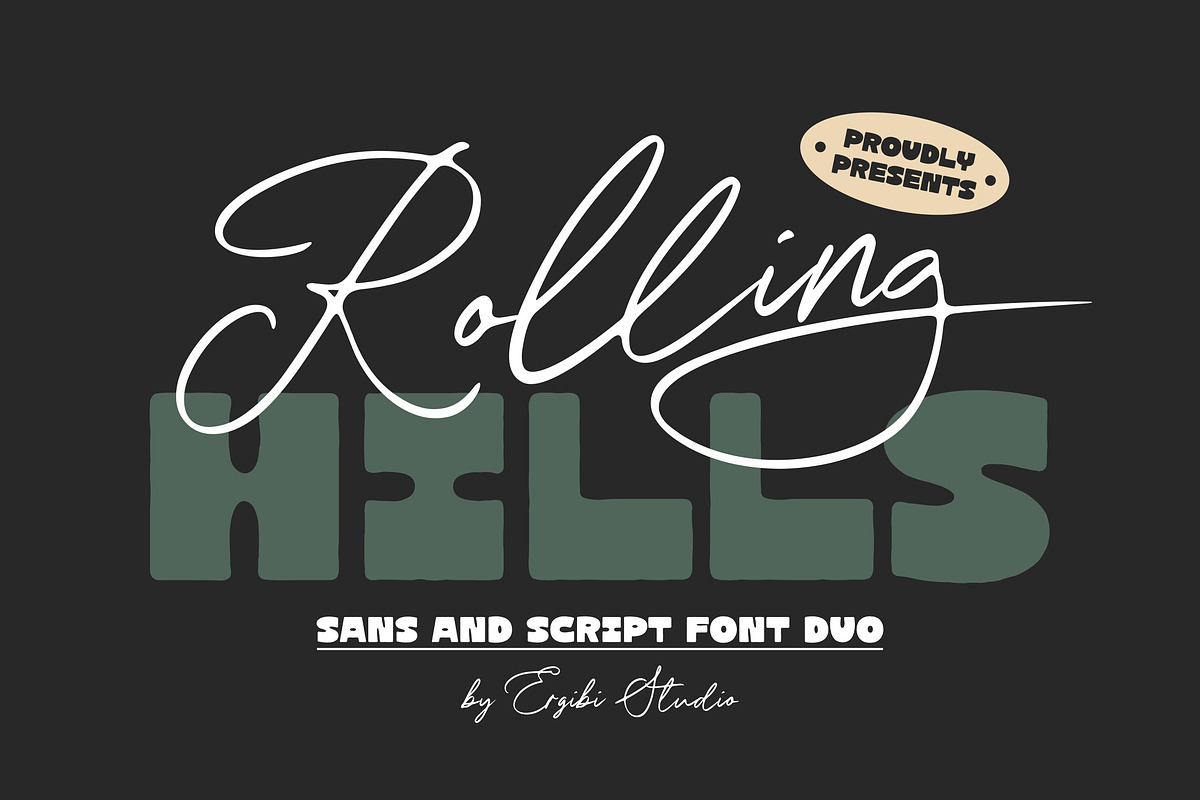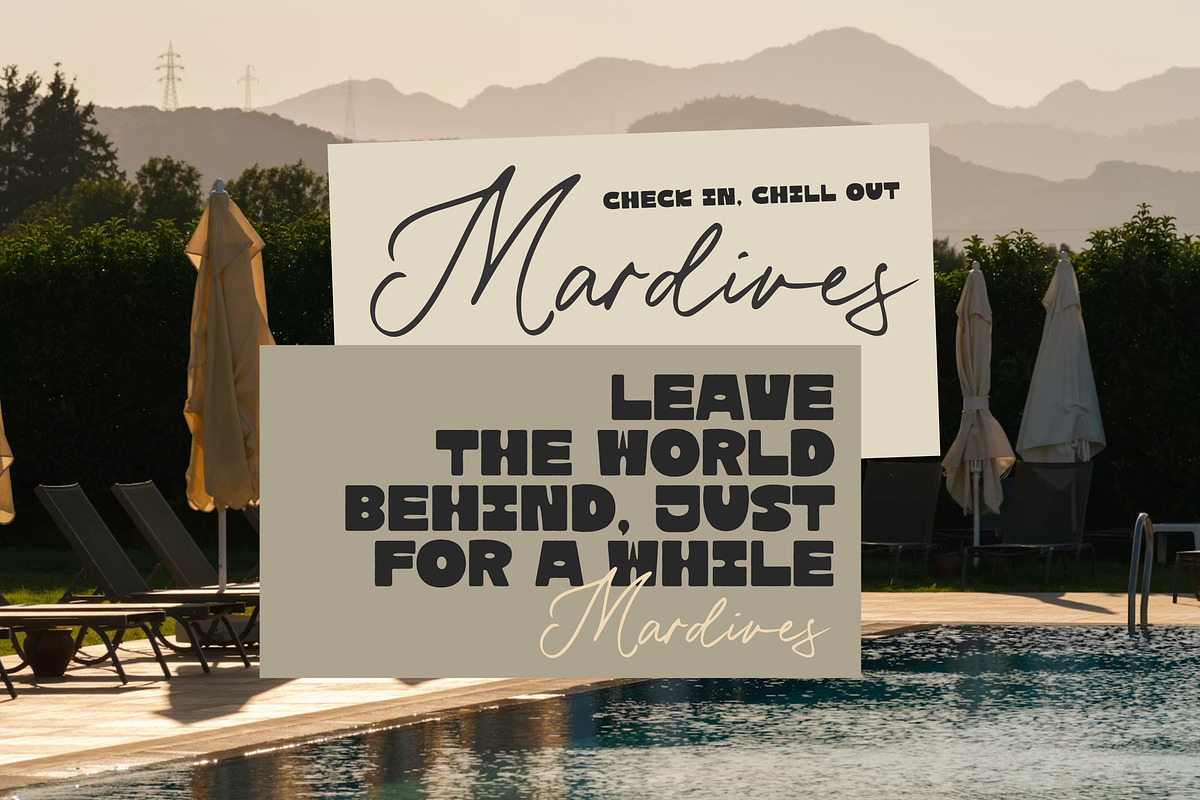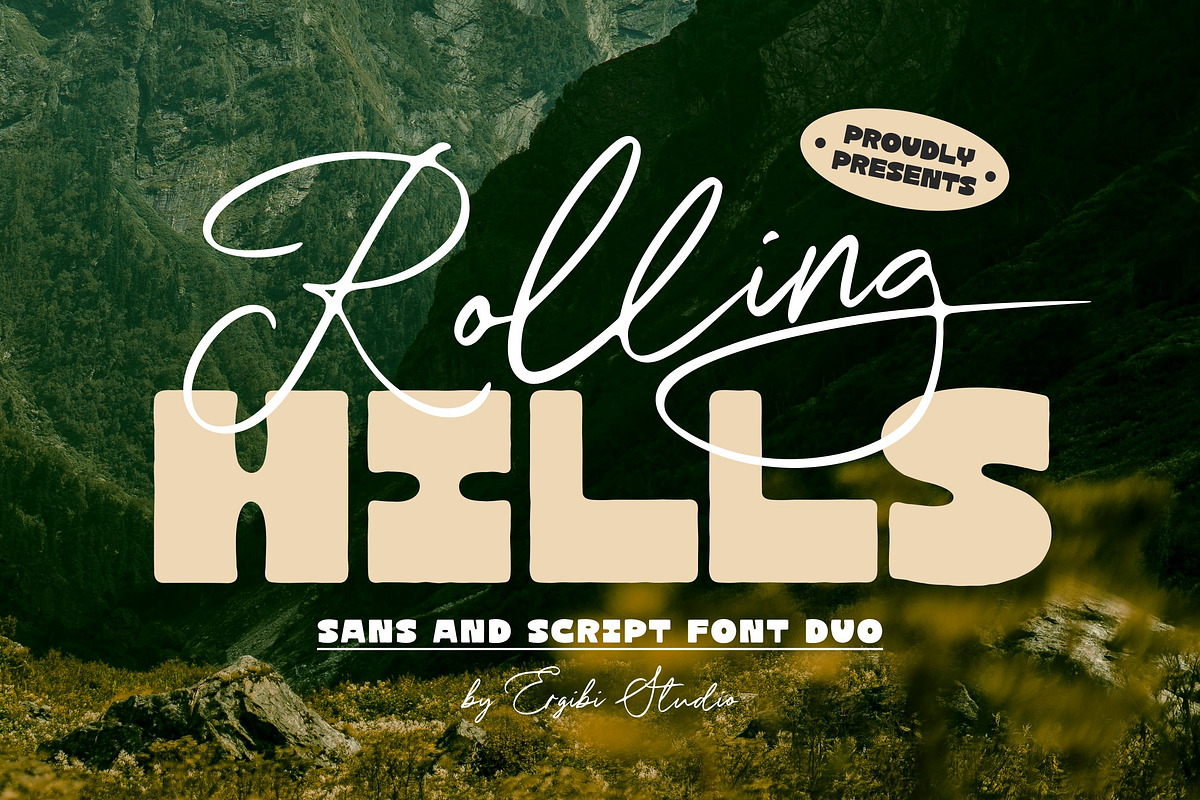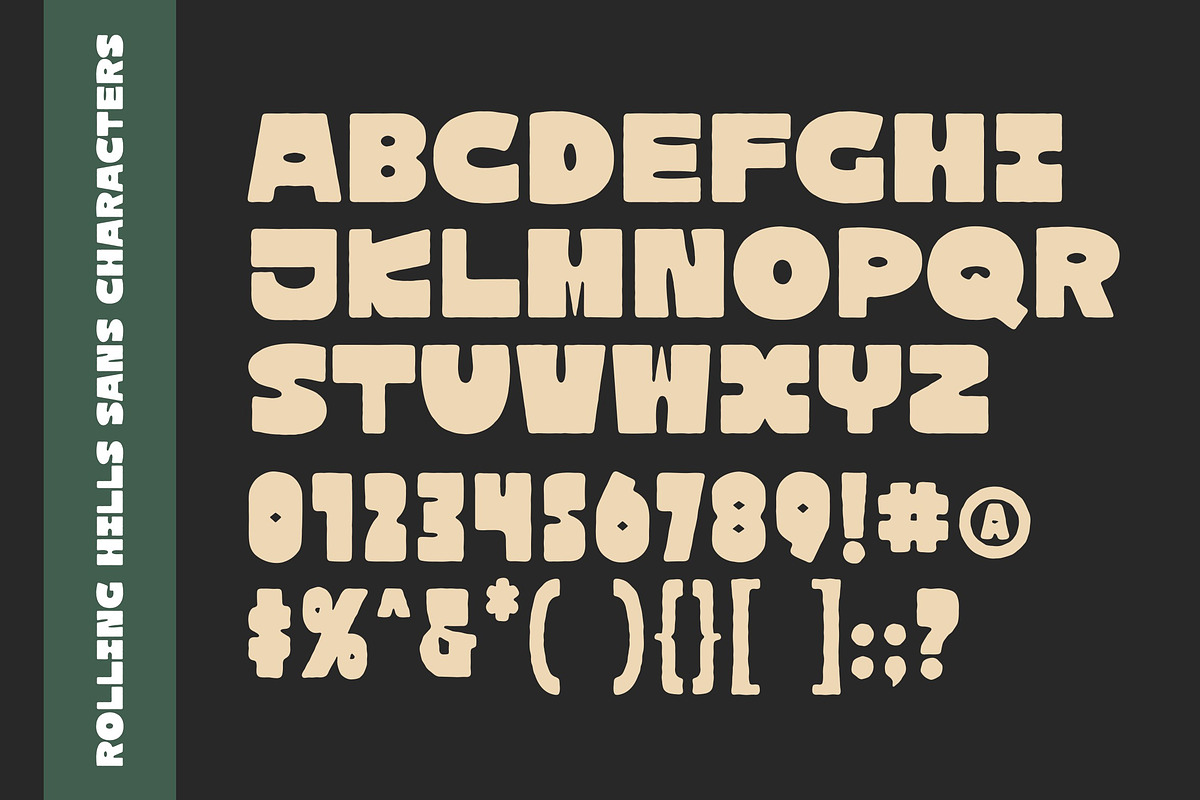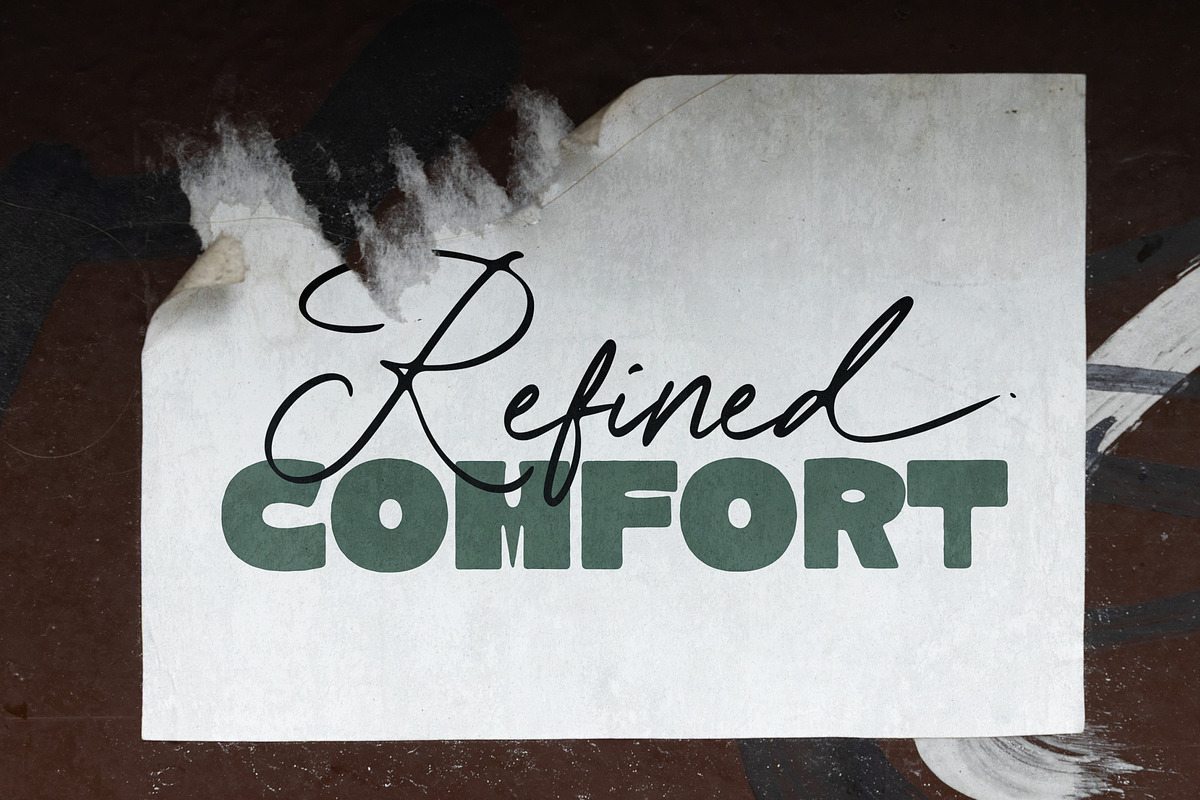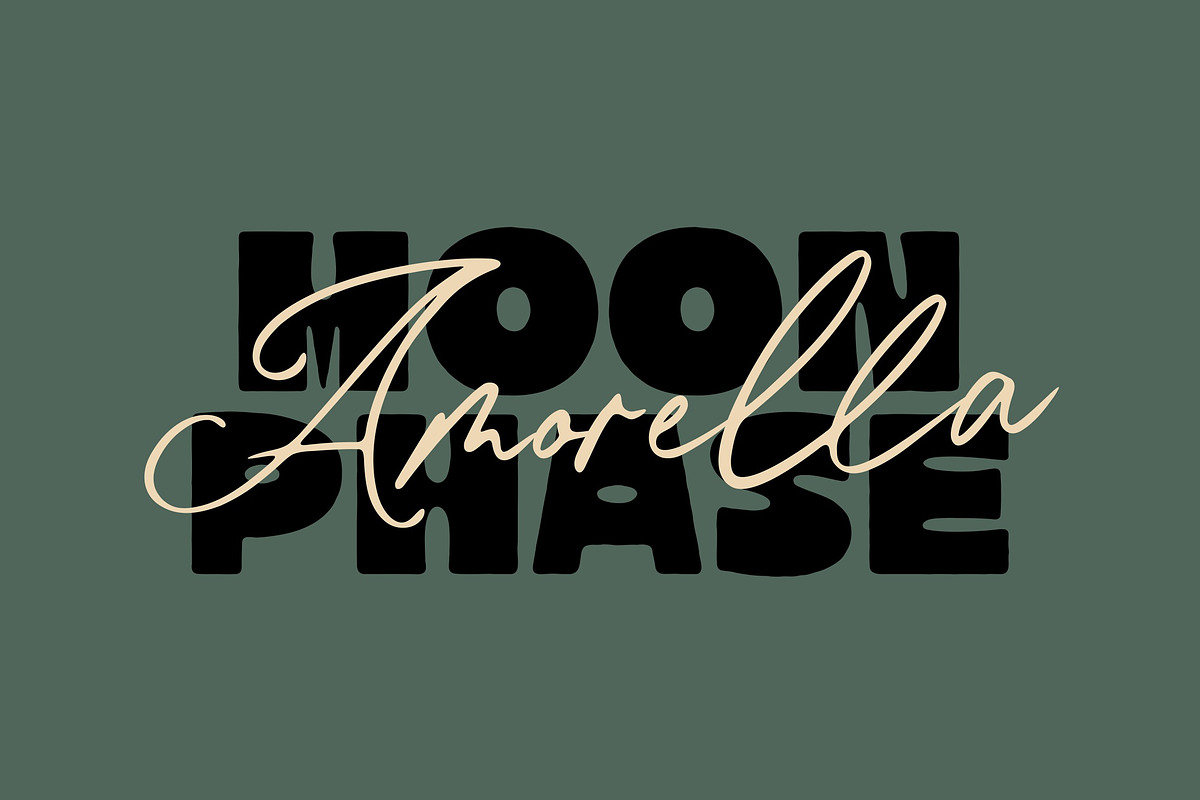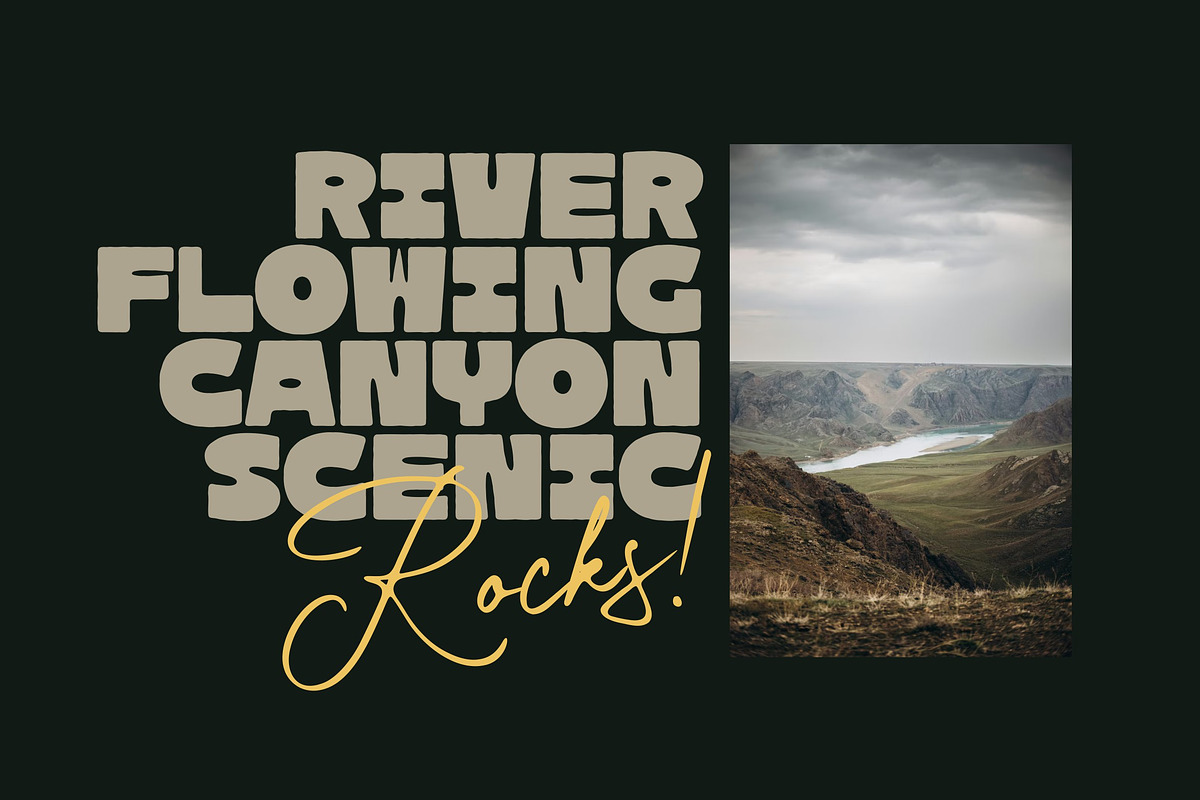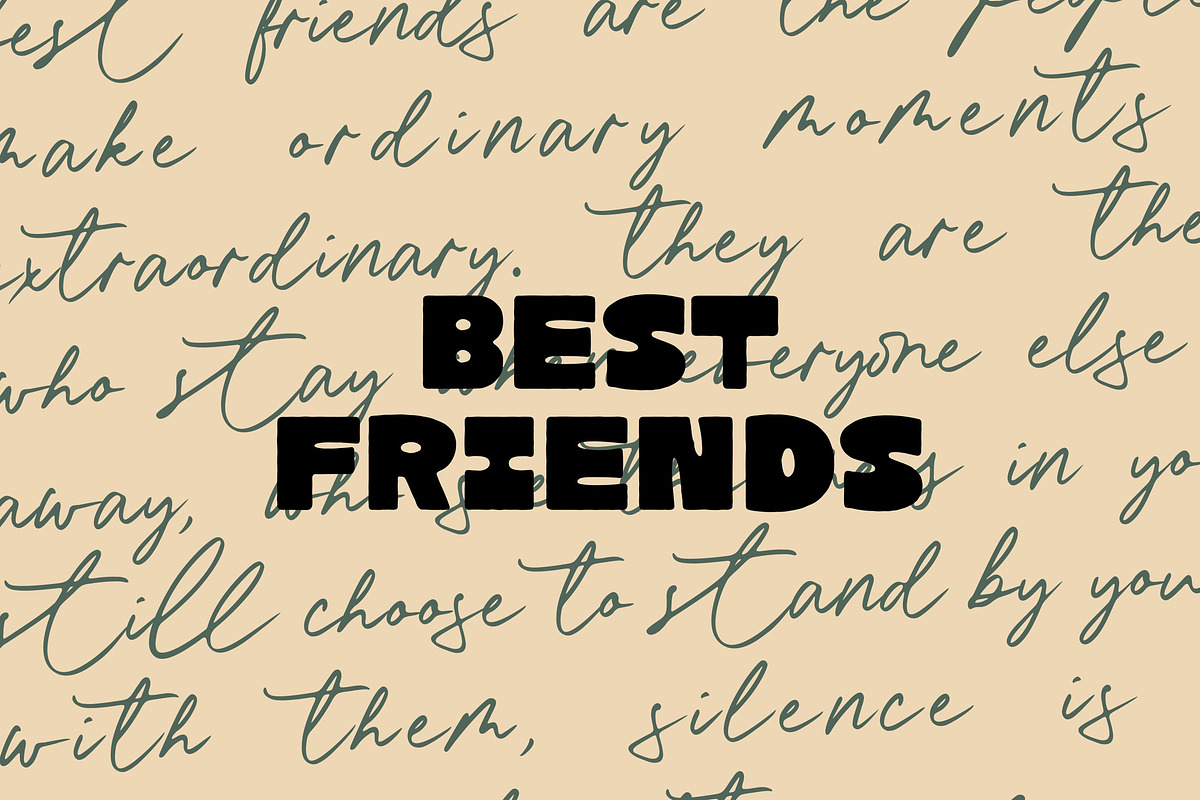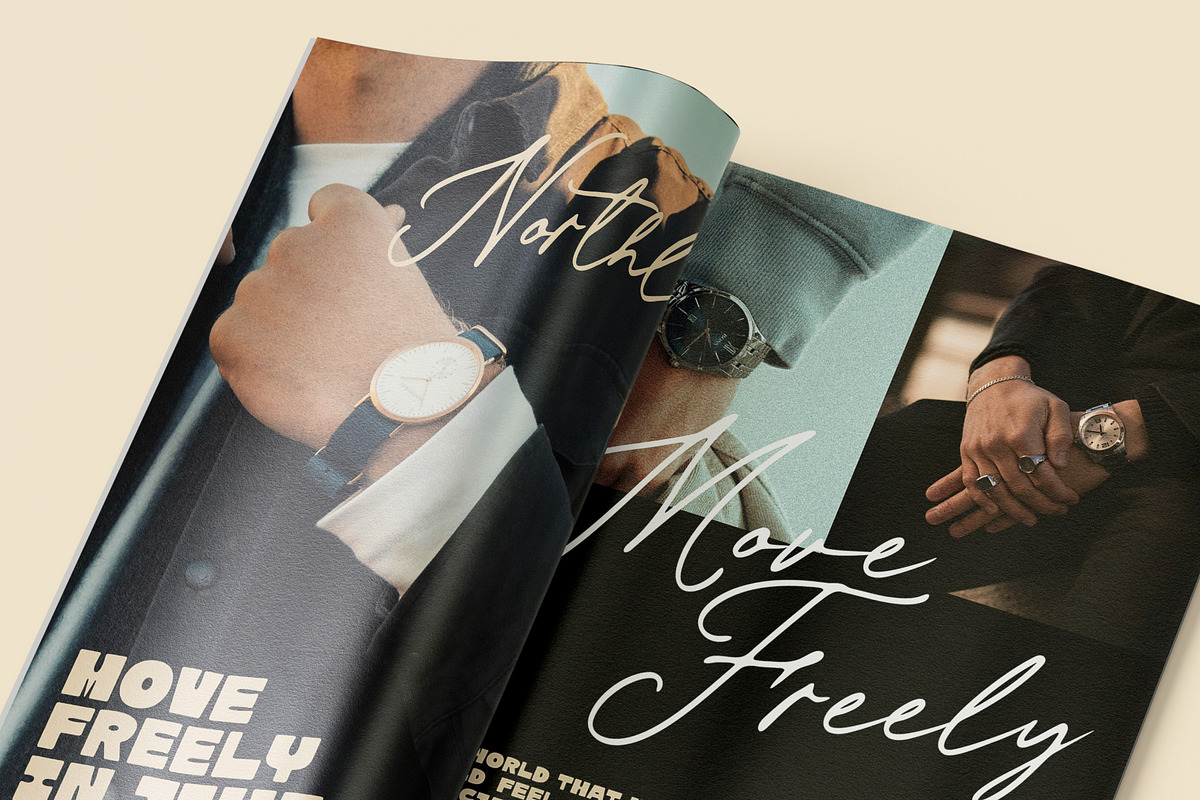
Rolling Hills - Font Duo
Bring warmth, personality, and timeless style to your designs with Rolling Hills, a carefully crafted font duo featuring a bold retro sans and an elegant signature script.
Inspired by vintage signage, handcrafted branding, and modern lifestyle aesthetics, Rolling Hills delivers the perfect contrast between strong statement lettering and graceful handwritten strokes.
From boutique branding and product packaging to apparel, social media, and logo design, this versatile duo helps your work stand out with a distinctive and professional look.
Alternate & Ligature
International Accent